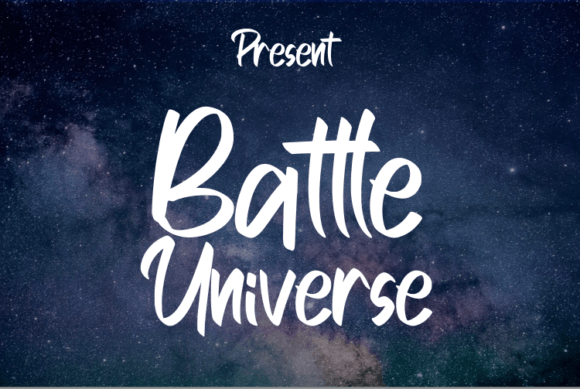
Unleashing the Power of Typography: Introducing the Battle Universe Font
Do you remember the moment when you saw a beautifully crafted logo or title and instantly knew that it was something special? The way the letters danced on the page, the flow of the script, and the overall aesthetic that left you in awe? For designers, this is the moment when all the hard work pays off, and the creativity shines through. And what if I told you that there’s a font that can help you achieve this magic, time and time again?
Enter the Battle Universe Font, a script typeface that exudes elegance and sophistication. With its simple yet modern design, this font is perfect for creating luxurious logos, book titles, fashion brands, and magazine covers. As a designer, you’ll appreciate the versatility and flexibility that the Battle Universe Font offers, making it an invaluable addition to your toolkit.
Battle Universe Font Key Features
- Size: The font family includes multiple weights, ranging from Thin (100) to Extra Bold (800), providing flexibility for various design needs.
- Resolution: The font is designed to be scalable and legible at various resolutions, including HD (High Definition) and 4K displays.
- Unique Characteristics: Battle Universe Font features a futuristic and bold design, making it ideal for sci-fi, gaming, and action-packed themes.
- Font Metrics: The font’s x-height, line spacing, and letter spacing are carefully crafted to ensure readability and visual appeal.
Designer Review: Battle Universe Font
Overall, I’d say the Battle Universe Font has some great qualities that make it worth considering for your next design project. ✨ Here are a few things that stood out to me:
- Unique aesthetic: The font has a distinct, futuristic vibe that’s perfect for sci-fi or gaming-related projects.
- Highly legible: Even at smaller font sizes, the text remains clear and easy to read.
- Customization options: The font comes with a range of weights and styles, allowing you to tailor the look to your specific needs.
However, there are a few limitations that might make you think twice. ⚠️ Here are a few things to keep in mind:
- Limited character set: The font only includes a limited set of characters, which might not be ideal for projects that require a wide range of languages or special characters.
- Not ideal for body text: While the font is great for headings and titles, it’s not the best choice for body text due to its bold, futuristic appearance.
Overall, I’d say the Battle Universe Font is a solid choice for designers who are looking for a unique, high-energy font for their next project. With a little creativity and careful consideration, you can use this font to create some truly eye-catching designs.
Here are a few tips to get the most out of the Battle Universe Font:
- Use the font in combination with other bold and futuristic fonts to create a cohesive look.
- Use the font in conjunction with graphics and images to create a dynamic design.
The Battle Universe Font is commonly used in:
- Science fiction and fantasy designs.
- Video game and anime-inspired art.
- Create a bold, eye-catching title using the Battle Universe Font for the arcade game’s name.
- Add a background image of a retro arcade console or a pixel art design.
- Use a combination of bright colors and neon lights to give the poster a vibrant, nostalgic feel.
- Use bold, contrasting colors to make the title stand out.
- Experiment with different pixel art designs to create a unique background.
- Consider adding retro-style graphics, such as 8-bit characters or power-ups.
- Create a bold, metallic title using the Battle Universe Font for the novel’s title.
- Add a background image of a futuristic cityscape or a spaceship.
- Use a combination of dark blues and metallic silvers to give the cover a gritty, high-tech feel.
- Use a gradient effect to give the title a metallic sheen.
Project Ideas Using Battle Universe FontProject 1: Retro Arcade Poster
The Battle Universe Font is perfect for a retro arcade poster, capturing the nostalgia and playfulness of classic video games.
Project 2: Sci-Fi Novel Cover
The Battle Universe Font has a strong, futuristic feel, making it perfect for a sci-fi novel cover.